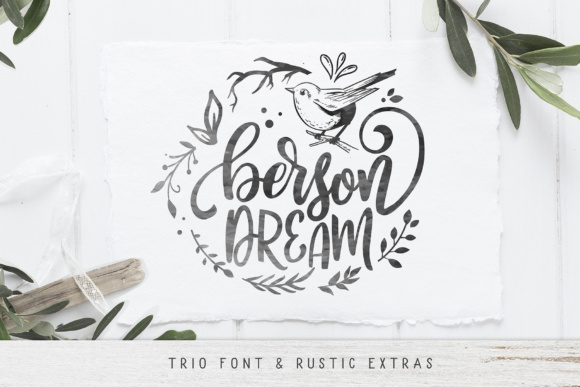
Berson Dream Font: A Romantic and Versatile Font Family for Your Creative Projects
The Berson Dream Font is a beautiful and unique font family that has been designed to cater to the needs of creative professionals and DIY enthusiasts alike. This stunning font family comprises three complementary fonts and rustic illustrations, making it perfect for use in a wide range of projects. Whether you’re looking to create print works, digital content, or simply want to add a personal touch to your designs, the Berson Dream Font is an excellent choice.
The Characteristics of Berson Dream Font
The Berson Dream Font is characterized by its romantic and doodle-like quality, which sets it apart from other font families. The font has a whimsical and hand-drawn feel, making it perfect for creating print works that require a personal touch. The rustic illustrations that come with the font family add an extra layer of charm, allowing you to create unique and eye-catching designs.
Key Features of Berson Dream Font
- Three Complementary Fonts: The Berson Dream Font family includes three complementary fonts that can be used together or separately, depending on your design needs.
- Rustic Illustrations: The font family comes with a set of rustic illustrations that can be used to add a touch of whimsy to your designs.
- Romantic and Doodle-like Quality: The font has a romantic and doodle-like quality that makes it perfect for creating print works that require a personal touch.
Uses of Berson Dream Font
The Berson Dream Font is a versatile font family that can be used in a wide range of projects, including:
- Print Works: The font is perfect for creating print works such as brochures, flyers, posters, and business cards.
- Digital Content: The font can be used to create digital content such as social media graphics, blog posts, and email newsletters.
- Branding and Identity: The font can be used to create branding and identity materials such as logos, letterheads, and packaging.
- Wedding and Event Planning: The font is perfect for creating wedding and event planning materials such as invitations, programs, and menus.
Benefits of Using Berson Dream Font
There are several benefits to using the Berson Dream Font, including:
- Unique and Eye-catching Designs: The font allows you to create unique and eye-catching designs that will set you apart from others.
- Time-saving: The font comes with a set of pre-designed illustrations and graphics, saving you time and effort in your design work.
The Berson Dream Font is a stunning font family that offers a range of features and benefits for creative professionals and DIY enthusiasts alike. With its romantic and doodle-like quality, rustic illustrations, and ease of use, this font family is perfect for creating unique and eye-catching designs for a wide range of projects. Whether you’re looking to create print works, digital content, or simply want to add a personal touch to your designs, the Berson Dream Font is an excellent choice.